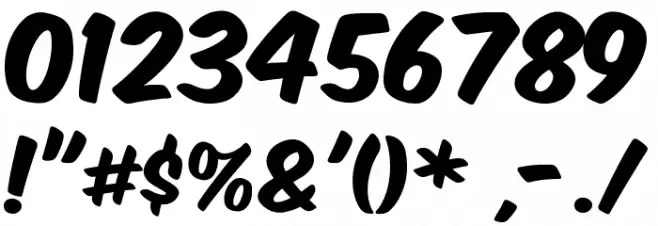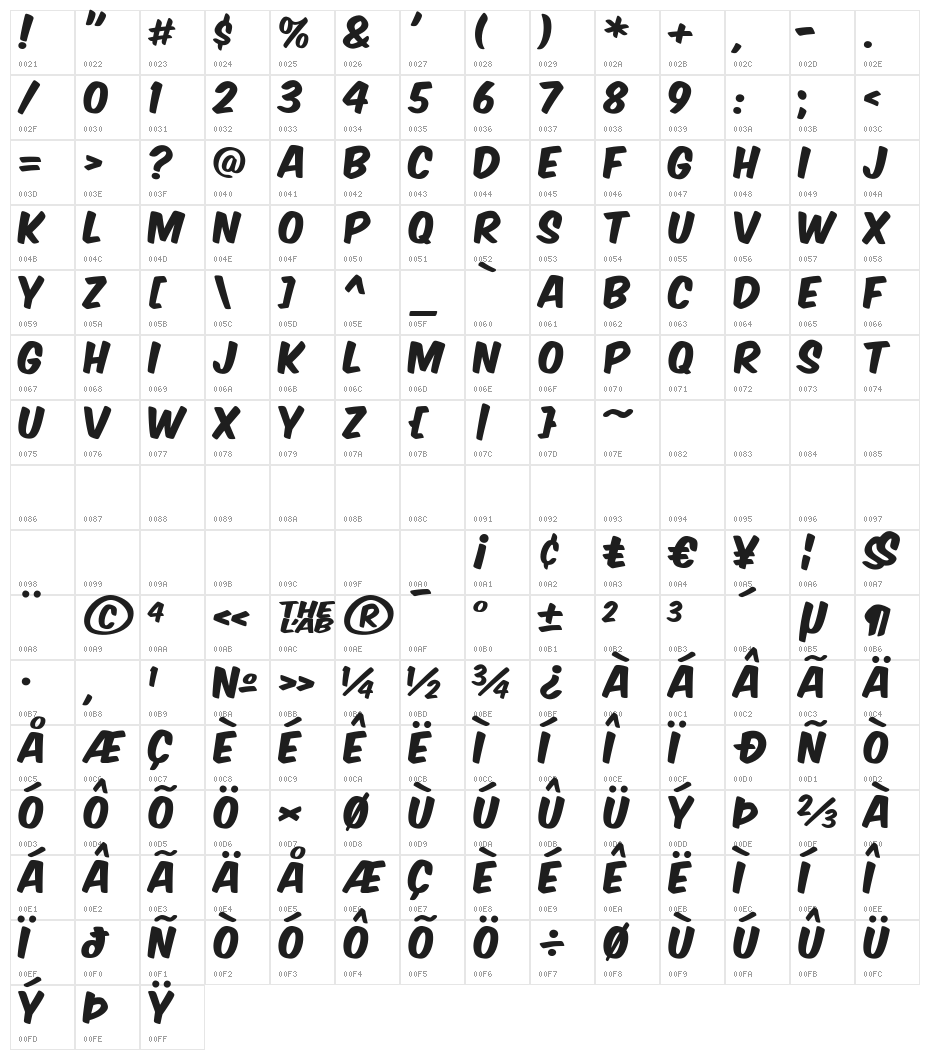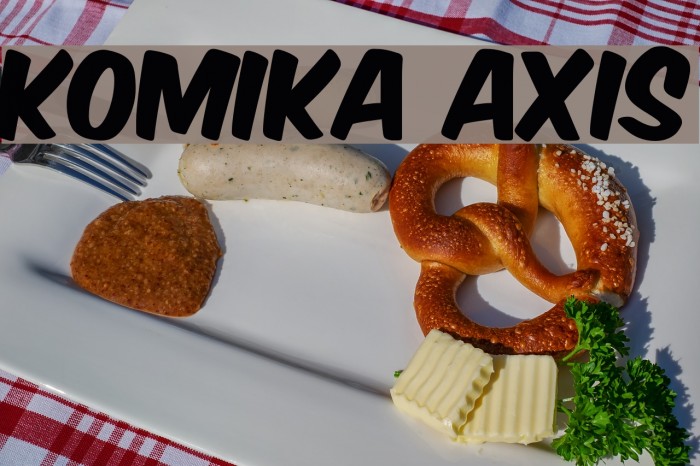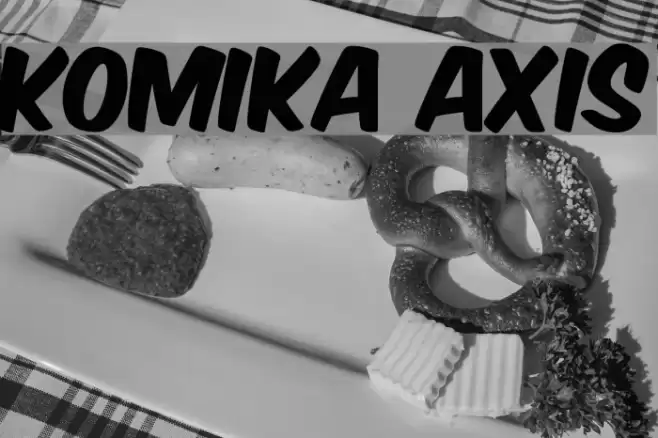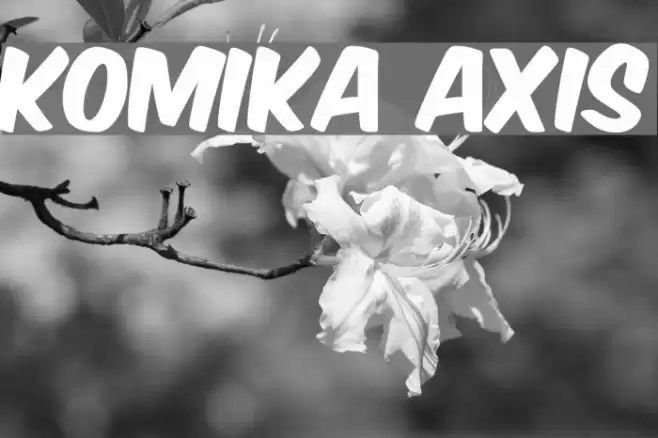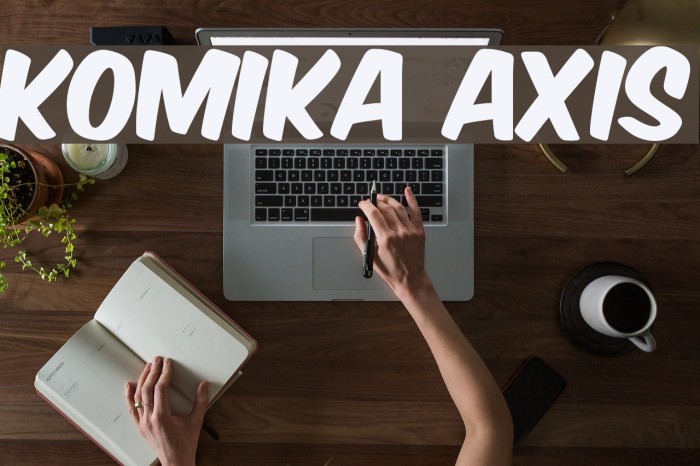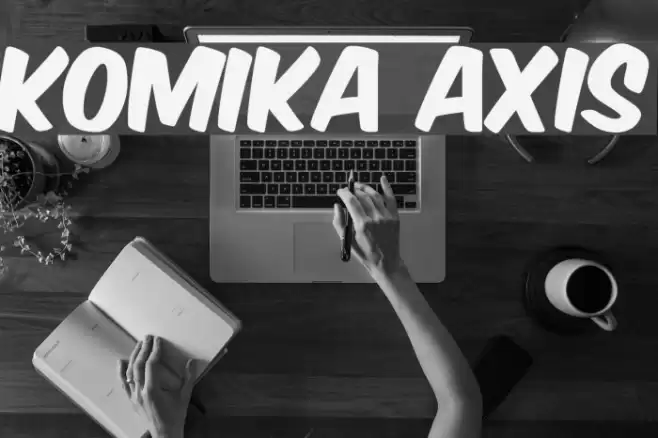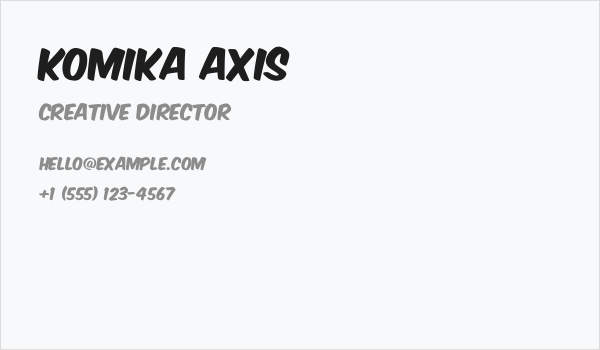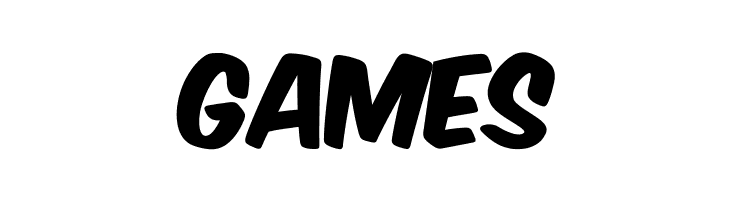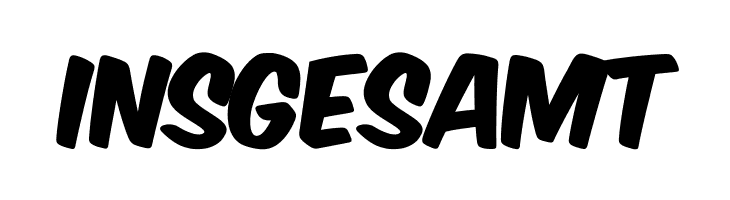
Komika Axis Font
Komika Axis Description
This font features bold, playful characters with a comic-inspired style. The letters are slightly slanted, giving a dynamic and energetic feel. The strokes are thick and consistent, providing a strong visual impact. Each character has a rounded, friendly appearance, making it approachable and fun. The numbers and special characters maintain the same lively style, ensuring consistency across all elements. This font is ideal for projects that require a touch of humor and creativity, such as children's books, comic strips, or playful branding.
| Overall Style | Playful, Comic |
| Proposed Projects | Ideal for comic books, children's materials, playful branding, and creative posters. |